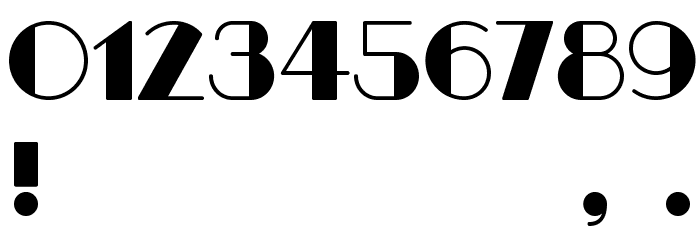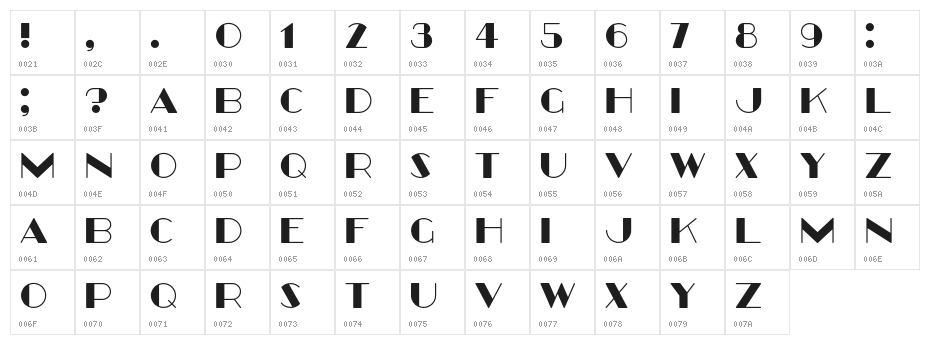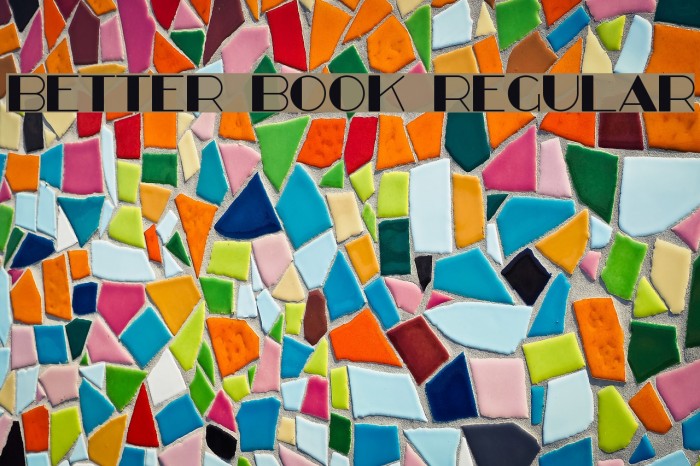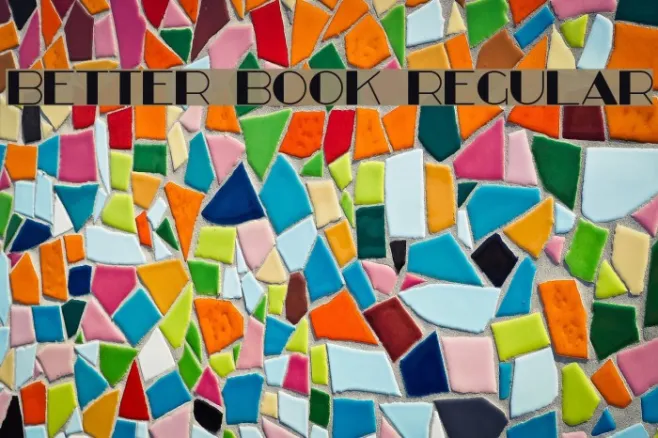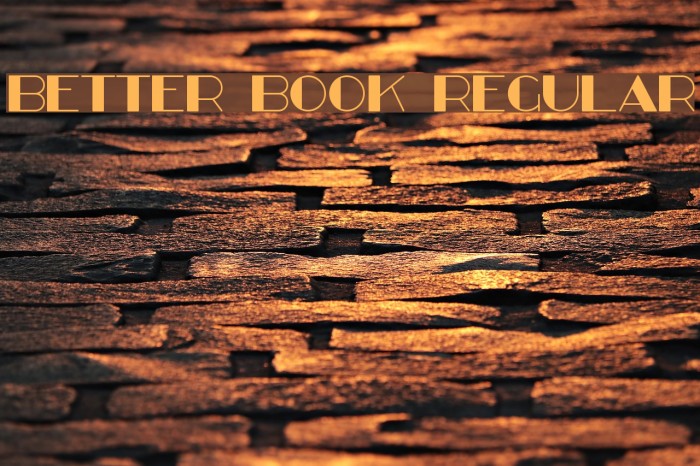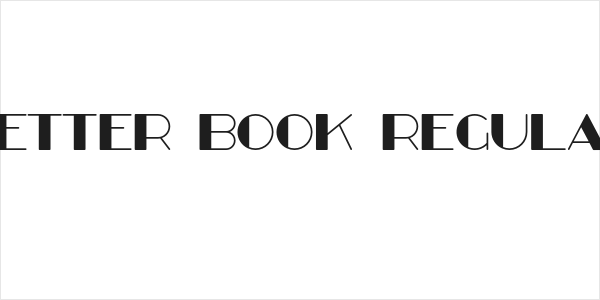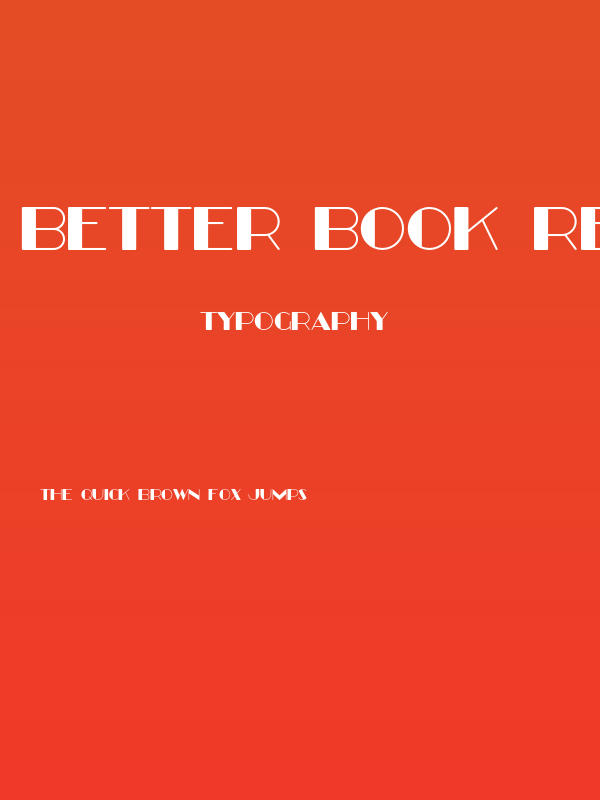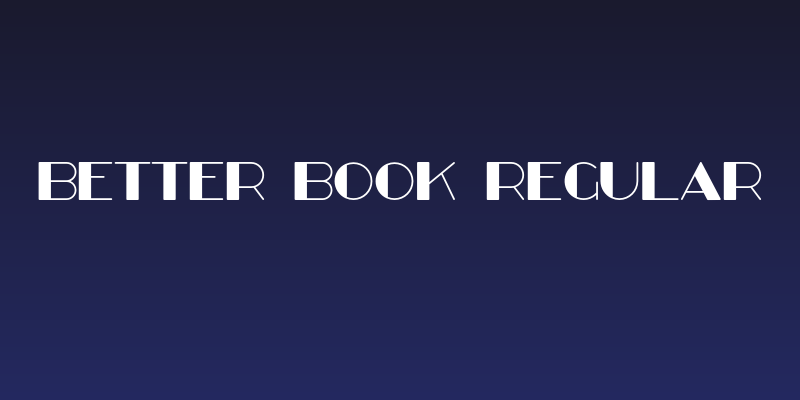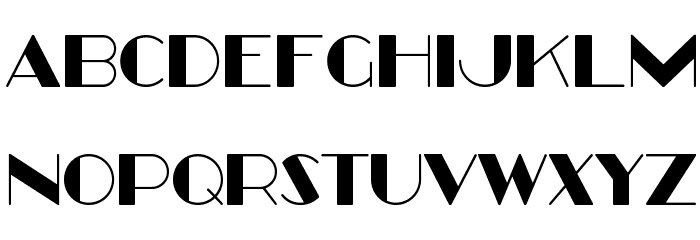
Better Book Regular Font
Better Book Regular Description
This font features a bold and geometric design with a modern flair. The characters are constructed with sharp angles and clean lines, creating a striking and contemporary appearance. The uppercase letters are particularly distinctive, with unique cuts and shapes that give the font a dynamic and stylish look. The numerals and punctuation maintain the same boldness and geometric style, ensuring consistency throughout the typeface. This font is perfect for making a strong visual impact.
| Proposed Projects | Ideal for branding, posters, headlines, and any project requiring a modern and impactful typeface. |